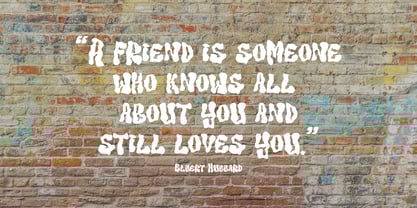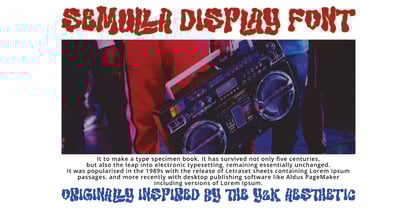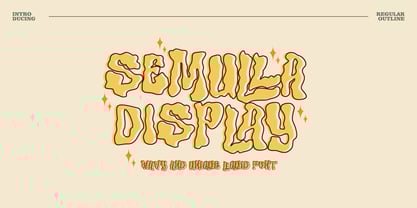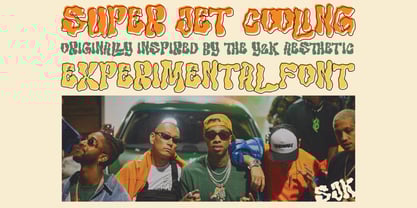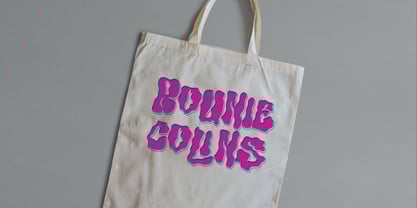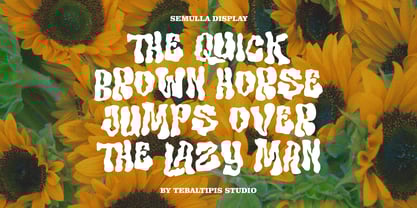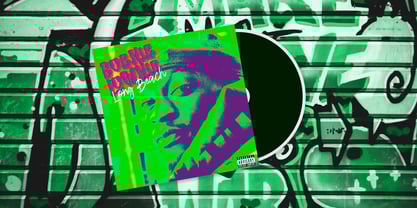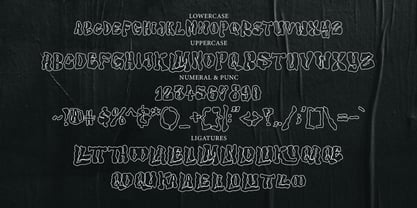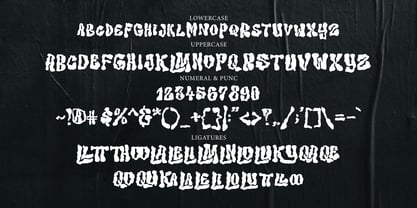
Semulla Display
by Tebaltipis Studio
The Semulla Display Font Family was designed by Dzulka Elfira and published by Tebaltipis Studio. Semulla Display contains 2 styles.
Semulla is a wobbly, funky, groovy hand-drawn font, originally inspired by the Y2K aesthetic. It comes in 2 styles, suitable for posters, logos, t-shirts, flyers, prints, and other branding materials. Perfect fit for your personal or commercial projects.